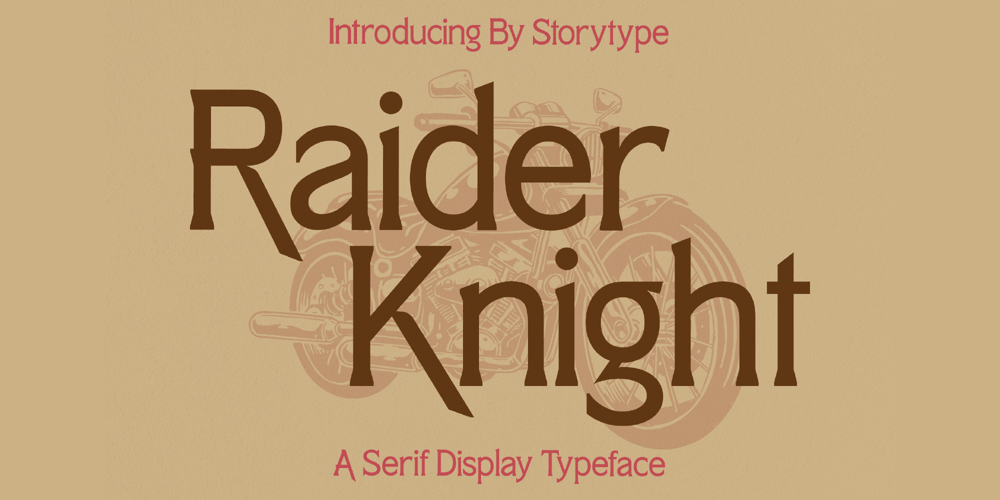
Raider Knight
Raider Knight font
Raider Knight Font Family was designed by Heru Utama Putra and published by Letterena Studios. Raider Knight contains 2 styles and family package options. Raider Knight is a modern and classic serif typeface that has its own unique style and fresh look.This font is perfect for elegant and luxury logos, book or movie title designs, fashion brands, magazines, clothes, lettering, quotes, and so much more.